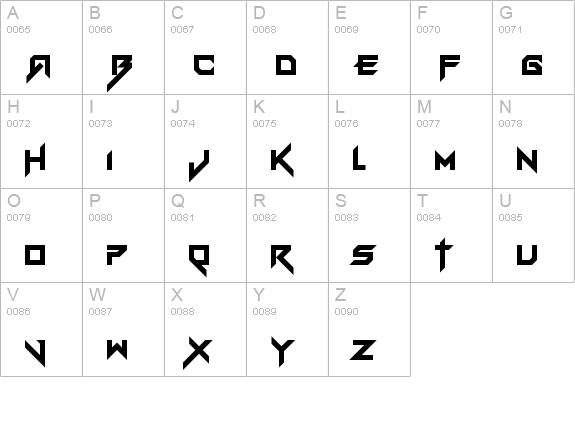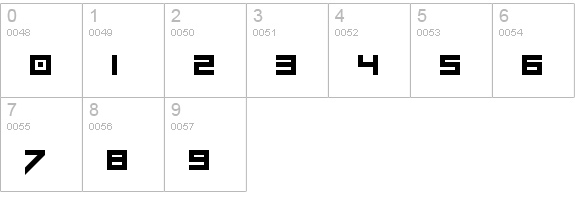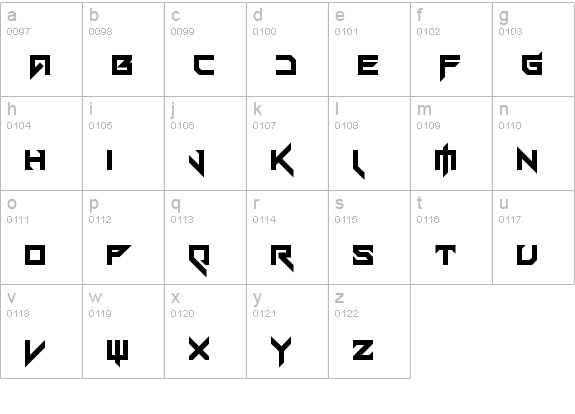
Vermin Vibes eX Regular is the standard, neutral variant in the Vermin typeface family \xE2\x80\x94 well suited to general body text, paragraphs, and standard typographic work.
Vermin Vibes eX Regular font is a versatile and modern typeface that exudes a unique and edgy vibe perfect for a wide range of design projects. Its sleek lines and sharp angles give it a contemporary feel that is both eye-catching and stylish. This font is ideal for use in branding, logos, posters, and more, adding a touch of flair and originality to any design. What sets Vermin Vibes eX Regular font apart is not only its modern aesthetic but also its accessibility. This font is freely available to download at FontsMarket.com, making it easy for designers to incorporate it into their projects without any cost. With its bold and distinctive look, Vermin Vibes eX Regular font is sure to make a statement and elevate any design to the next level.